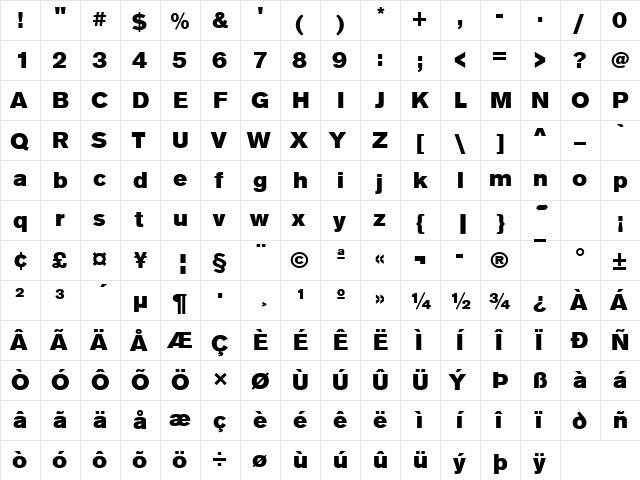
URWAccidaliaTUlt Regular
Design Context for URWAccidaliaTUlt Typeface
URWAccidaliaTUlt is a composed and adaptable typeface that performs quietly and consistently across a wide range of design contexts.
Pro Tip: Use URWAccidaliaTUlt in both headline and body roles to test its range before committing to a single application.